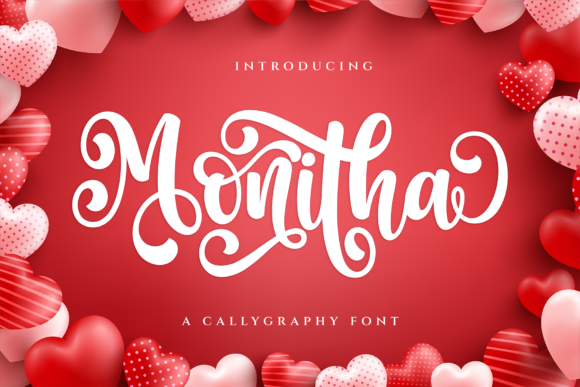
Introducing Monitha Font - the latest addition to our impressive collection of script fonts! Created by Graphicxell, this font family is designed to elevate your designs and add an extra touch of elegance and sophistication.
Monitha Font is a perfect choice for those looking to add a personal touch to their design projects. Its elegant and flowing handwritten style gives any design a charming appearance that is sure to capture the attention of anyone who sees it.
Whether you're designing wedding invitations, greeting cards, logos, or any other project that requires a script font, Monitha Font is the perfect choice. Its versatility allows it to be used for a wide range of design projects, making it a must-have for any designer's toolkit.
Crafted with attention to detail, Monitha Font's soft curves and graceful strokes create a seamless flow of letters, making it a pleasure to read and use. Its clean and well-defined lines give it a modern touch, making it perfect for both print and digital media.
Monitha Font comes in a range of styles, making it easy to choose the perfect fit for your project. From light and airy to bold and dramatic, this font family has it all.